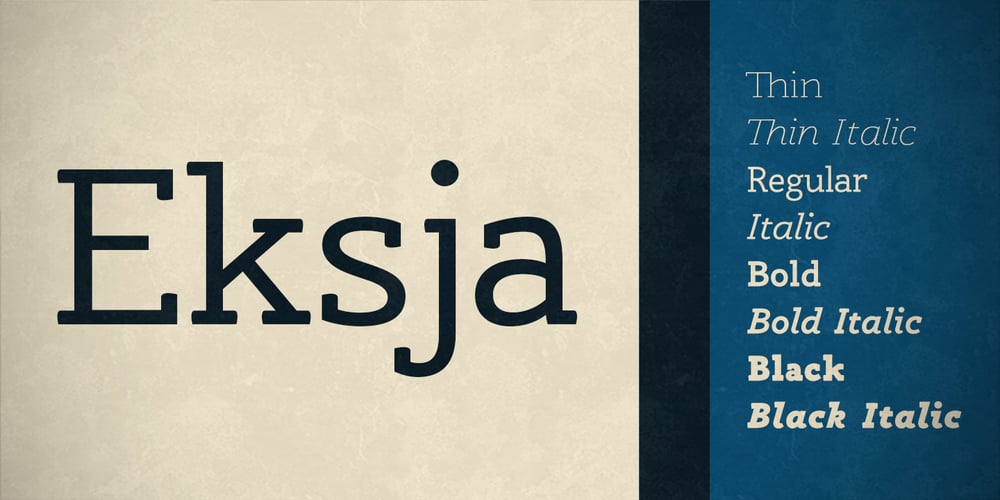
Eksja Font Family was designed by Ben Jones and published by Protimient. Eksja contains 8 styles and family package options. Eksja is a modern slab serif available in four weights, each with a corresponding italic. All the fonts in the family have small caps, the extended latin character set, diacritical f-ligatures, enclosed numerals (numbers in circles) and case-sensitive punctuation. The general design of the typeface has been with a strong human touch in mind. The ends of the serifs have been given a subtle rounding, just enough to take the edge off which, when coupled with the largely humanist structure of the design, creates an open, friendly and approachable design, abandoning the usual geometric severity commonly associated with slab serif typefaces. Eksja contains quite a comprehensive numerals system. Obviously, each font has the standard proportionally and tabularly spaced lining and old-style figures but, crucially, the tabular numerals share the exact same width in each font variant. That means that you can choose to use the thin, regular, bold, black and their italic forms all in the same setting and they will always line up. In addition to the ‘normal’ numerals there are super-script and sub-script numerals and OpenType fractions that can be automatically composed as you type. There are also the enclosed numerals, numbers inside a circle, that are useful for numerically listing items and, thanks to the wizardry of OpenType, they can contain any number of digits (typically, enclosed numerals are precomposed single digits, only encompassing the 0–9 range, the enclosed numerals in Eksja can go to double digits, triple digits or, in fact, any number of digits*). *The automation of the enclosed numerals is accessed via either “Stylistic Set #1” or “Stylistic Alternates” which requires the use of an application that supports OpenType stylistic sets or stylistic alternates, such as Adobe’s InDesign or Photoshop.